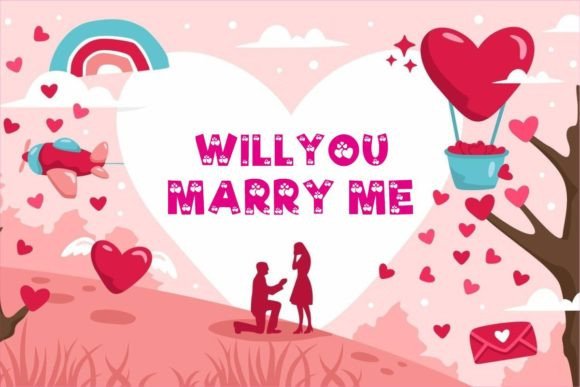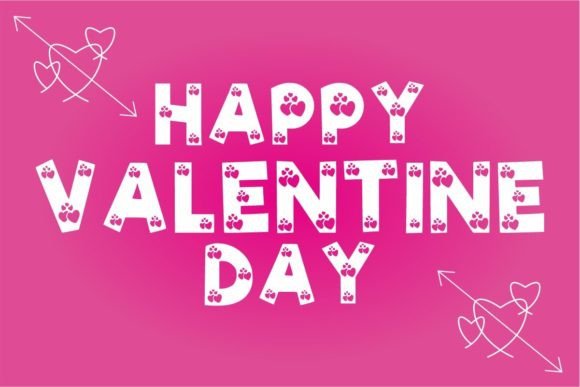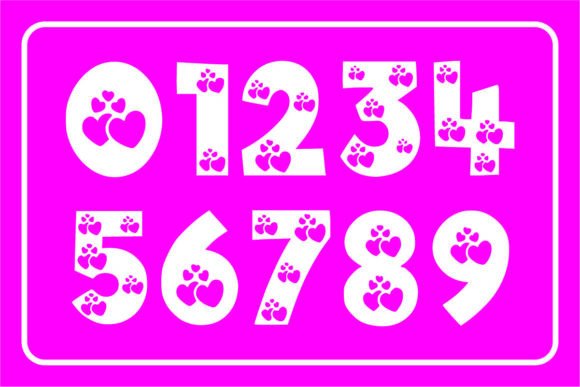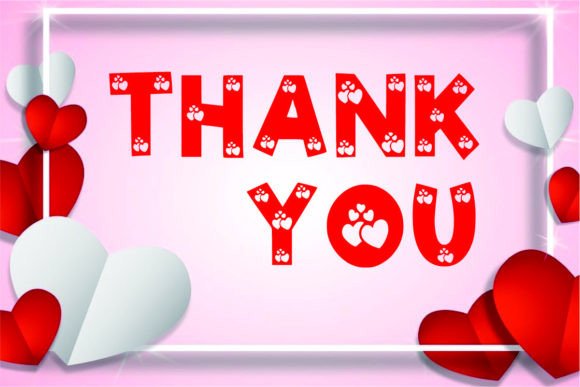
Introduction to Lovelyn Font
Lovelyn is inspired by romantic typography of fun, love, and happiness.
You can use it for your love designs, digital designs, t-shirts, or creating greeting cards, this font has the potential to become your go-to font no matter the occasion .
Key Features of Lovelyn Font
Why Choose Lovelyn Font?
Lovelyn Font offers exceptional quality and versatility, making it a valuable addition to your design toolkit. Whether you’re creating for personal projects or commercial use, Lovelyn Font delivers professional results.